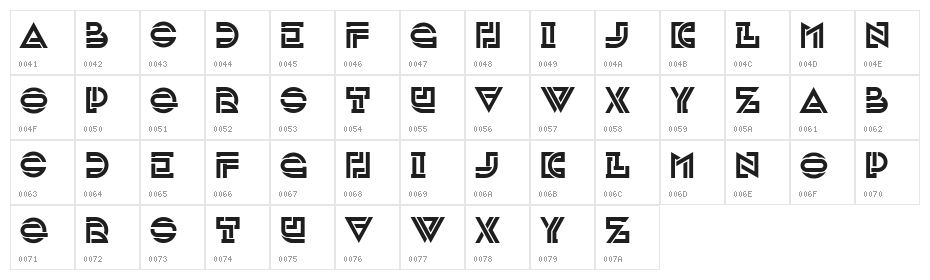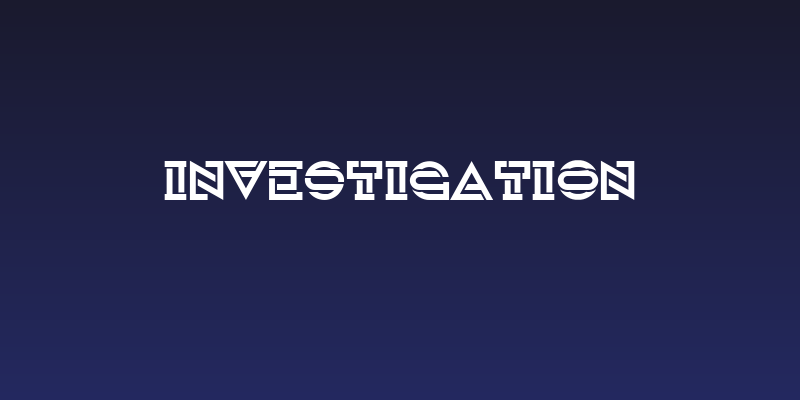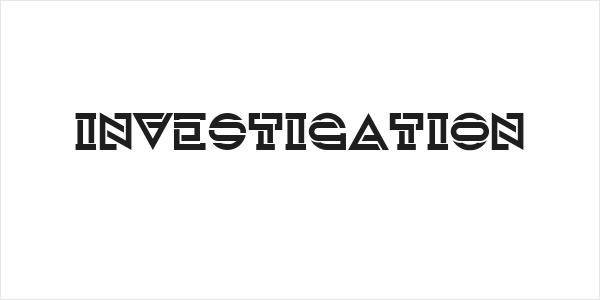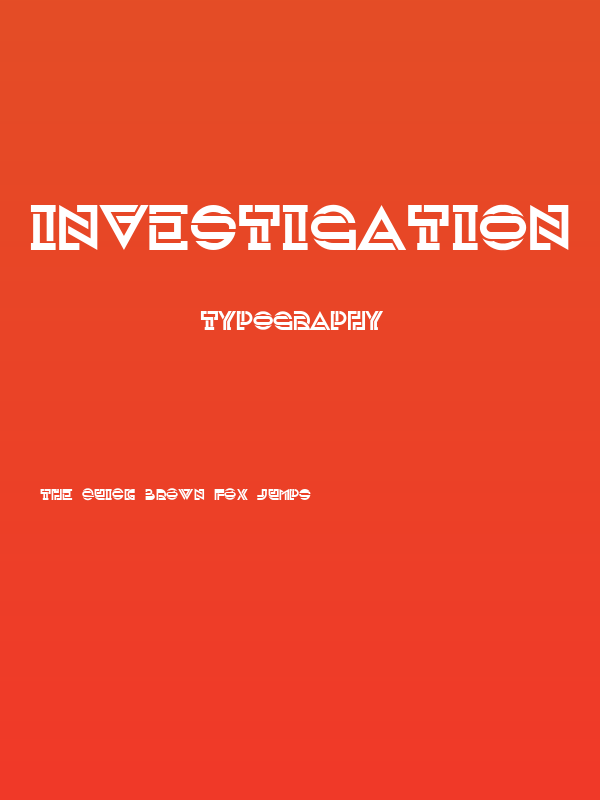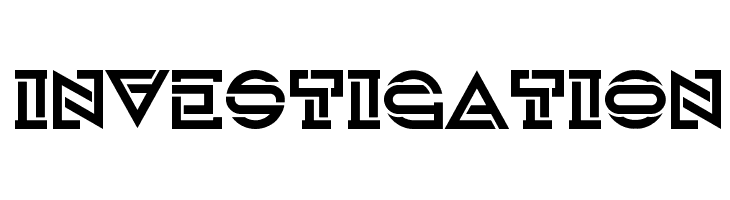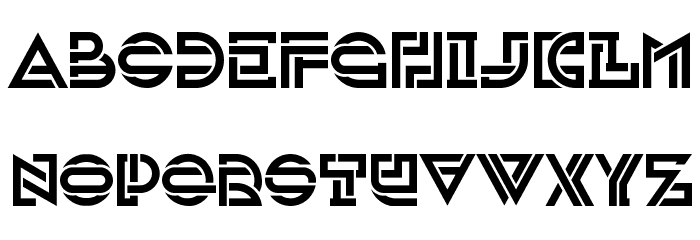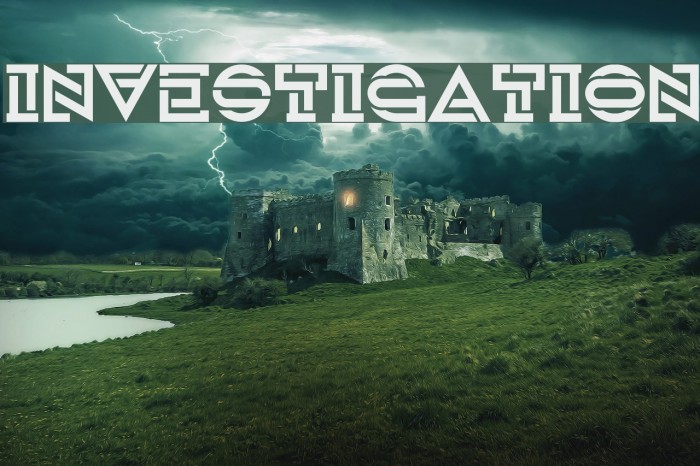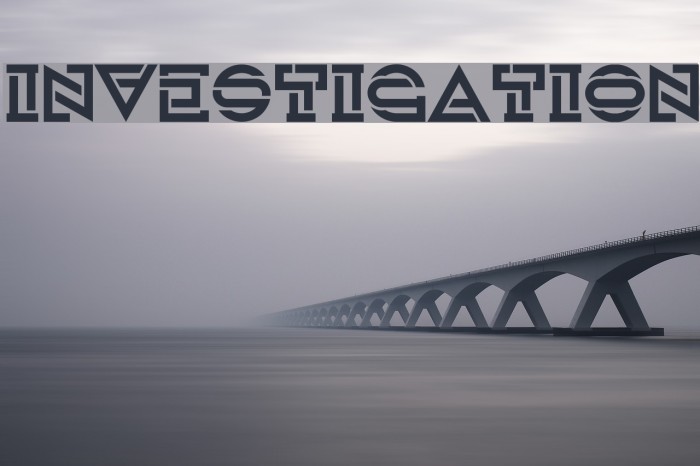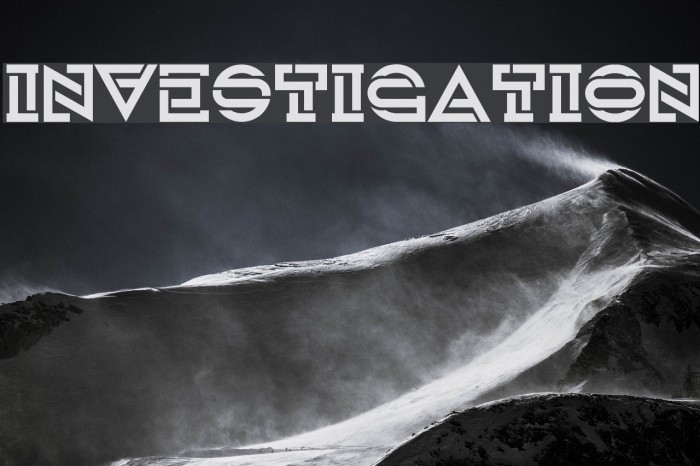
Investigation Font
Investigation Description
This font features a bold, geometric design with a futuristic aesthetic. The characters are constructed with thick, angular lines and sharp edges, creating a sense of movement and energy. The use of negative space within each letter adds a unique visual interest, making the font stand out. The uppercase letters are particularly striking, with a consistent pattern of horizontal and diagonal cuts that give the typeface a cohesive look. This font is ideal for projects that require a modern and edgy feel, such as technology branding, sci-fi themed designs, or contemporary art displays.
| Use Case | Logos, Headlines |
| Proposed Projects | Ideal for technology branding, sci-fi themed designs, contemporary art displays, and modern advertising. |